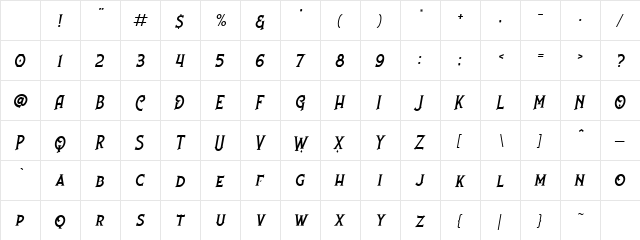
Nufced DEMO is a composed and adaptable typeface that performs quietly and consistently across a wide range of design contexts. The slanted form adds forward momentum and visual energy.
Pro Tip: Use Nufced DEMO for emphasis, pull quotes, and subheadings where its slanted energy can add rhythm to the layout.